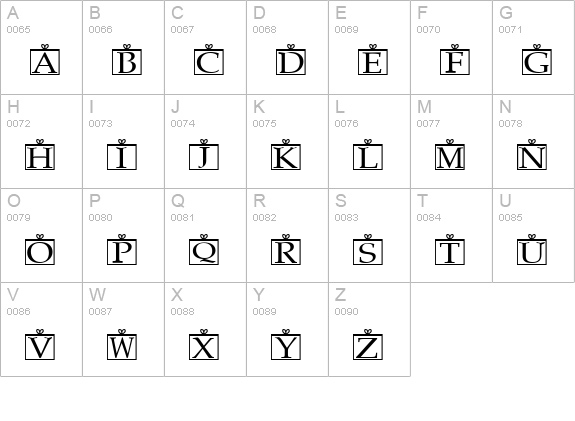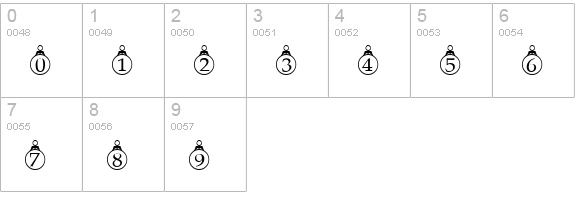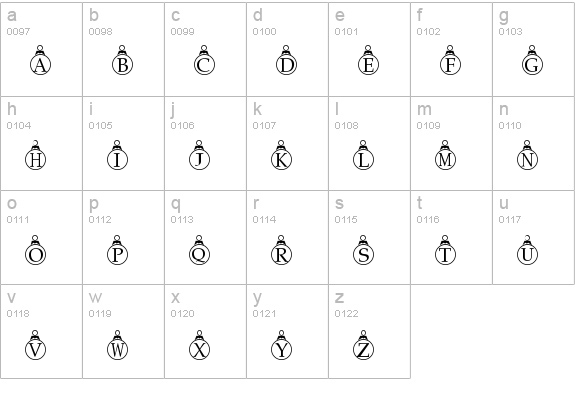
Initial Caps 4 Normal Font Details
Initial Caps 4 Normal is the standard, neutral variant in the Initial typeface family \xE2\x80\x94 well suited to general body text, paragraphs, and standard typographic work.
Introducing Initial Caps 4 Normal font, a stunning typeface that combines elegance and sophistication with a touch of modernity. This font is perfect for adding a touch of class to your designs, whether it's for branding, logo creation, or any other creative project. The Initial Caps 4 Normal font features beautifully crafted initial capital letters that are sure to make a bold statement. Each letter is meticulously designed to create a harmonious balance between curves and straight lines, resulting in a visually pleasing aesthetic. But what sets the Initial Caps 4 Normal font apart is its versatility and accessibility. It is freely available to download at FontsMarket.com, making it accessible to everyone, regardless of budget constraints. This means that you can effortlessly elevate your designs without breaking the bank. Whether you're a professional designer or a creative enthusiast, the Initial Caps 4 Normal font is a must-have in your font collection. Its timeless design and effortless style will surely leave a lasting impression on your audience. So why wait? Head over to FontsMarket.com and download the Initial Caps 4 Normal font today. Unleash your creativity and let this font elevate your designs to new heights. With its free availability, there's no reason not to add this stunning typeface to your repertoire.